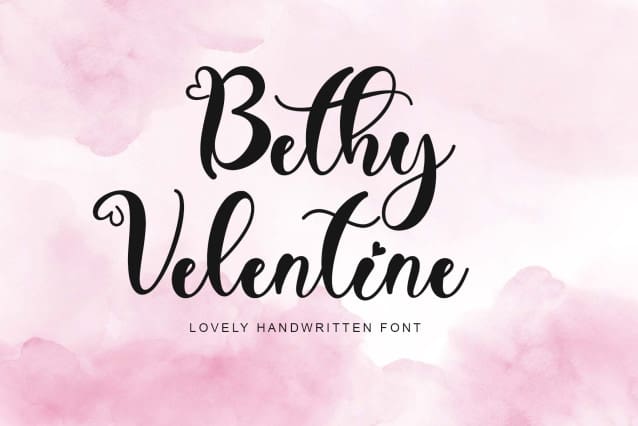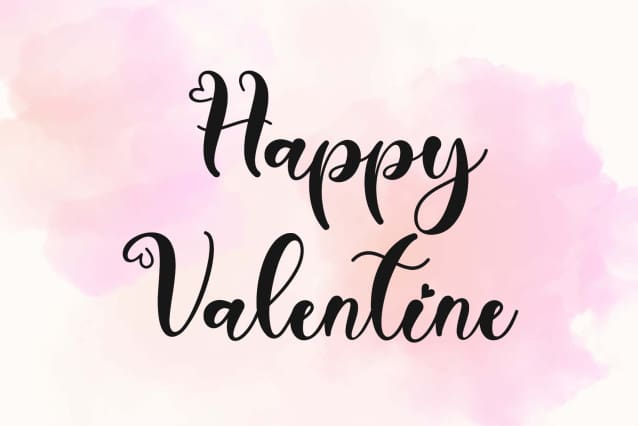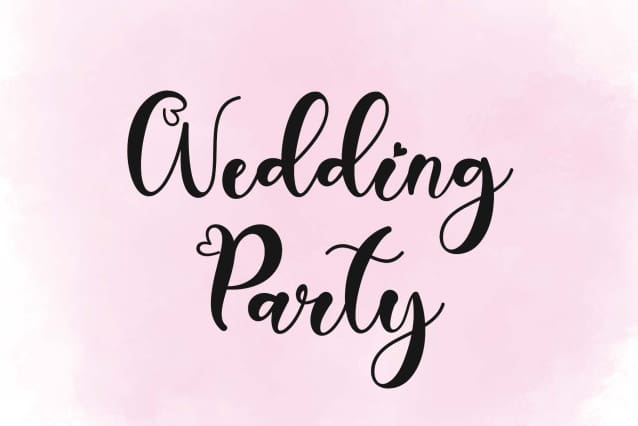
Bethy Valentine Font
Bethy Valentine Font is a beautiful and elegant handwritten font. This font is equipped with uppercase, lowercase, numerals, punctuation, and multilingual support. Very suitable for weddings, valentines, engagements, invitations, banners, posters, branding, stickers, SVG, KDP, Procreate, and others.